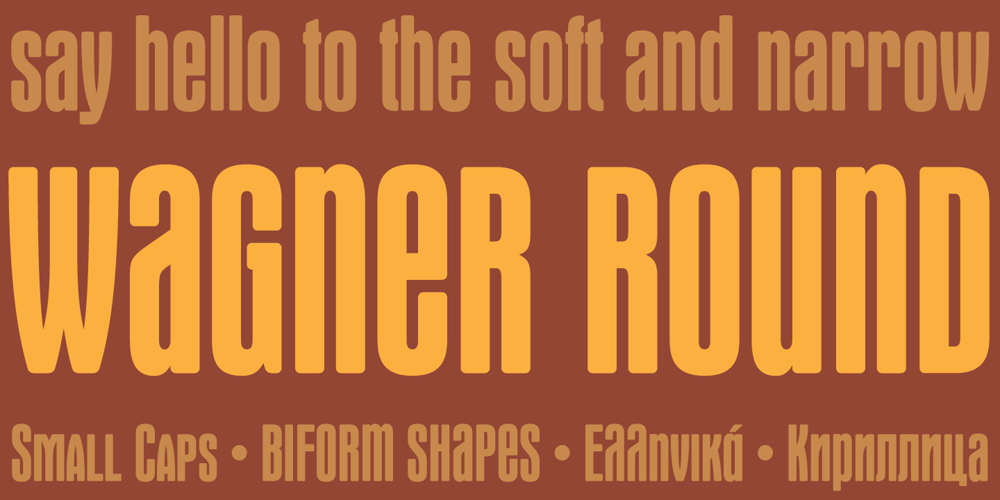
Wagner Round Font Family was designed by Patrick Griffin and published by Canada Type. Wagner Round contains 4 styles and family package options. This is the rounded, softer version of Canada Type’s popular Wagner Grotesk. Originally done in 2011 for a global publisher, this font has already seen plenty of magazine and book cover action, perhaps even more than the sharp condensed face that spawned it. And like Wagner Grotesk, Wagner Round comes with small caps and biform/unicase forms, in addition to the main upper/lowercase set. The extended language support covers a wide range, including Greek and Cyrillic, Turkish, Baltic, Central and Eastern European languages, Celtic/Welsh and Esperanto. The Pro version combines all three TrueType fonts into one OpenType-programmed font, taking advantage of class-based kerning, the small caps feature, and the stylistic alternates feature for the biform shapes.